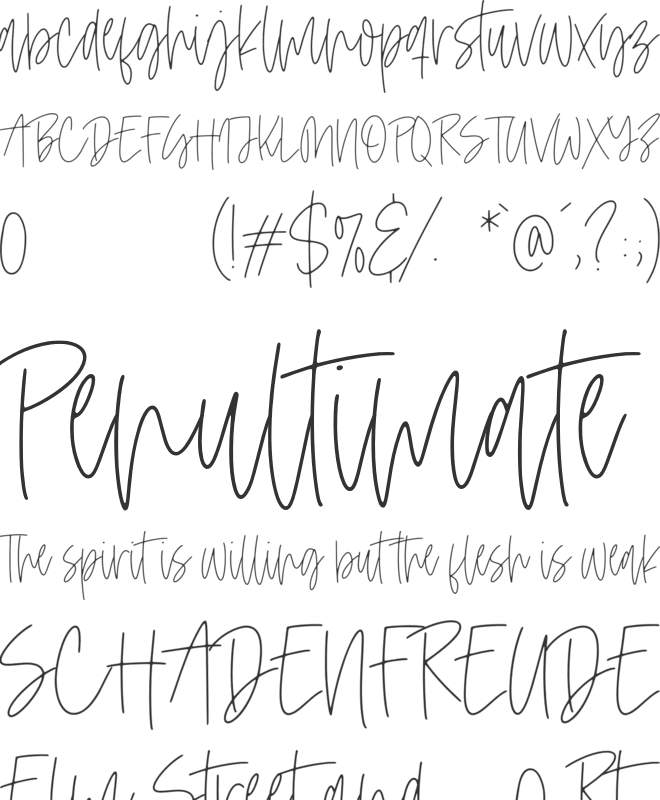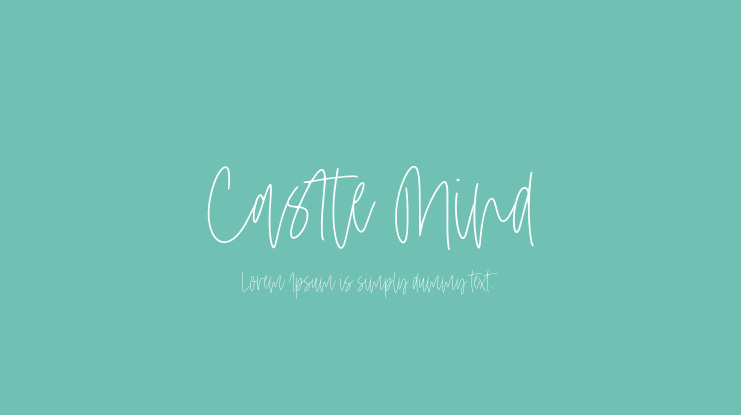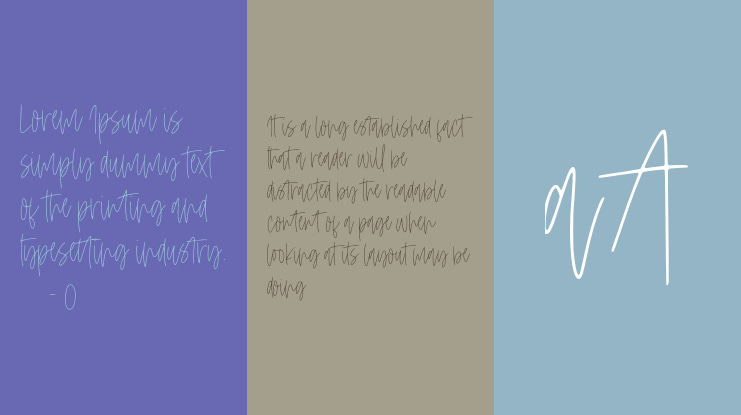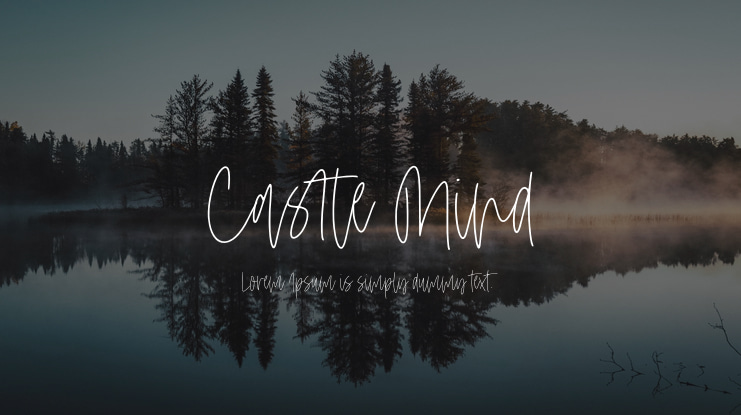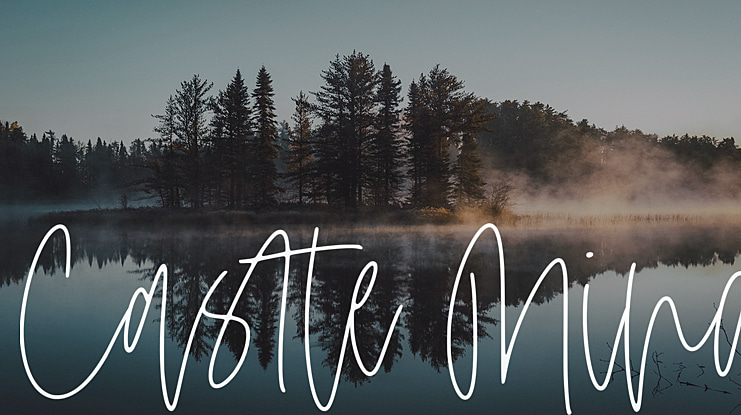
Castle Mind Font
This is a casual cursive handwritten typeface crafted & designed by Letteralle. With regular mono-line consist stroke, fun character with a bit of ligatures and alternates. This font is suitable for handwriting logos, T-shirts, merchandise, quotes, social media posts, advertising, and a lot more!